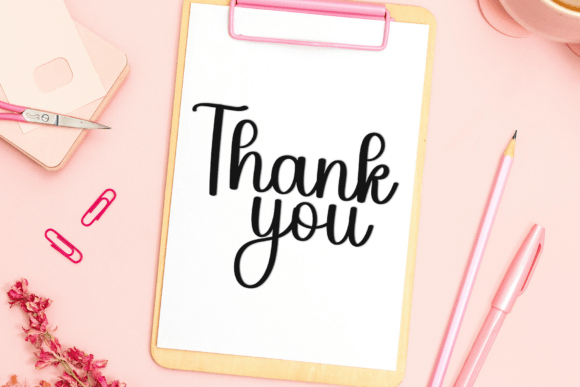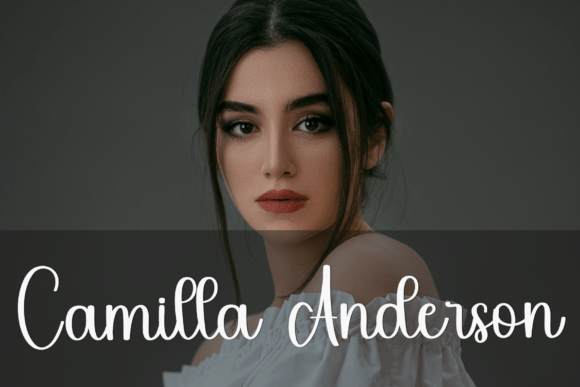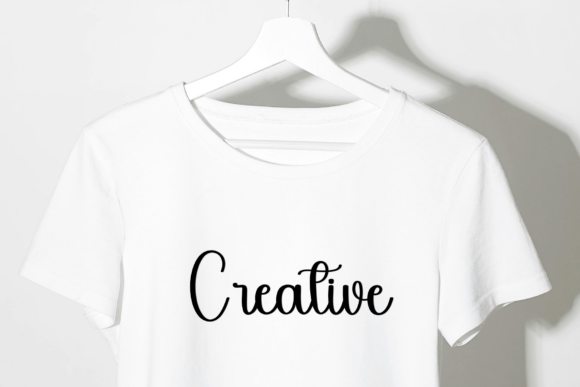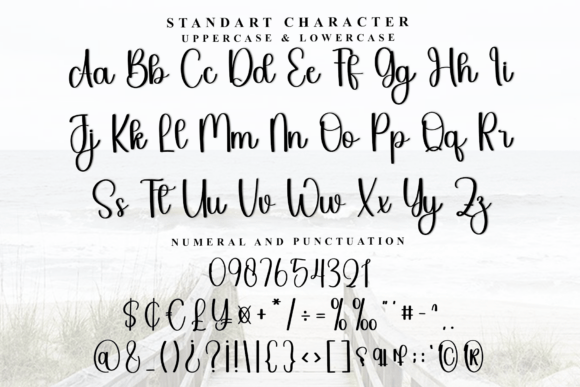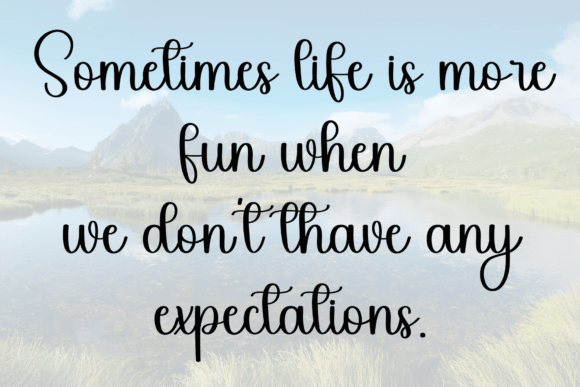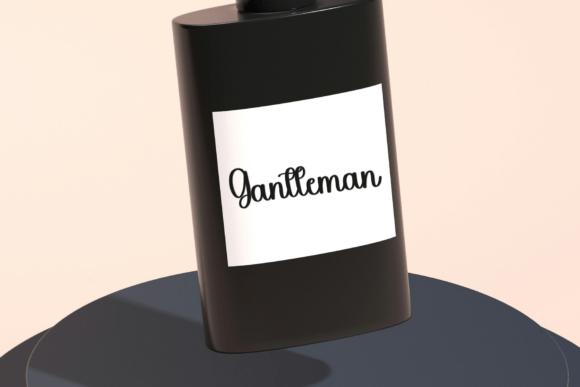
Introduction to Nothing Stylish Font
Have you ever stared at a blank canvas, waiting for the perfect font to spark your creativity? For designers, finding the right typography can be the difference between a good design and a great one. And that’s where the Nothing Stylish Font comes in – a beautiful and eye-catching font that’s sure to elevate your creative project to the next level.
Designed with a soft, unique touch, the Nothing Stylish Font boasts distinctive strokes that give it a special character. Its high quality and versatility make it a valuable resource for designers, perfect for use in a wide range of applications, from crafting and design projects to artistic endeavors.
Key Features of Nothing Stylish Font
- High-quality design for creative projects: Nothing Stylish Font is designed to provide a unique and stylish touch to your projects, making it a valuable design resource.
- Resolution-independent: The font is designed to be resolution-independent, ensuring that it looks great at any resolution or size.
- Unique characteristics: Nothing Stylish Font features a unique and modern design, making it perfect for creative projects that require a touch of elegance and sophistication.
Honest Review: Nothing Stylish Font
I recently stumbled upon the Nothing Stylish Font while searching for a high-quality design resource for a creative project. The font caught my attention due to its unique and quirky aesthetic.
Here are some aspects that work well with this font:
- ✨ The font’s quirky design makes it perfect for adding a touch of personality to creative projects.
- ⚠️ The font’s character set is limited, making it less suitable for complex text-based projects.
- ⚠️ The font’s design can be overwhelming if used in large quantities, so it’s best to use it sparingly.
Overall, I’m impressed with the Nothing Stylish Font’s unique design and versatility. While it may not be suitable for every project, it’s a great addition to any designer’s toolkit. I would definitely recommend it as a design resource for creative projects that require a touch of whimsy.